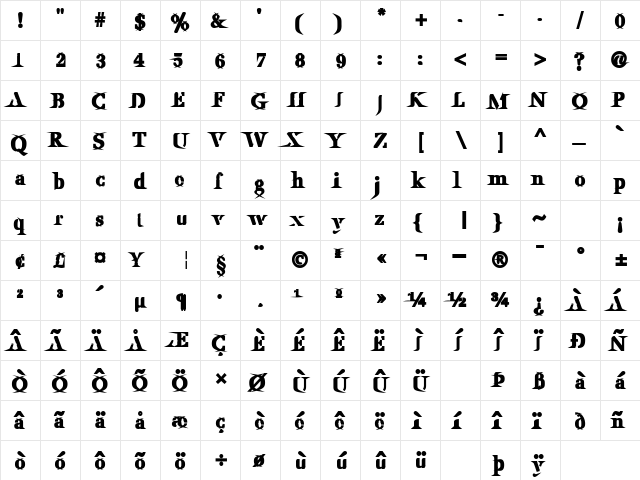
Utile Caustic
Design Context for Utile Typeface
Utile is a composed and adaptable typeface that performs quietly and consistently across a wide range of design contexts.
Pro Tip: Pair Utile with a font of contrasting weight or personality to build a more expressive typographic hierarchy.